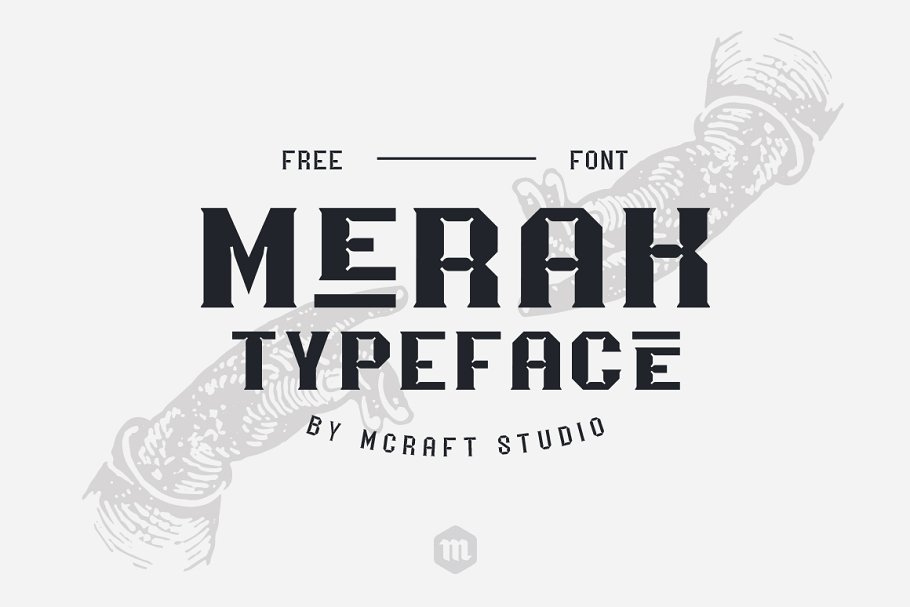
Merak Font
This celestial typeface is perfect for astronomy brands, space exploration companies, stargazing equipment, planetarium signage, cosmic merchandise, space-themed restaurants, astrology services, scientific publications, and stellar design applications.
What makes this font exciting is its stellar radiance combined with cosmic sophistication, offering designers a luminous typeface that captures the brilliance of distant stars while delivering astronomical precision and celestial visual magnificence.
The Merak font family includes light, regular, medium, bold, stellar, and cosmic variations, providing complete astronomical design solutions for creating brilliant celestial visual identities.
Whether you're developing space exploration brands or crafting cosmic design experiences, Merak Font Free Download brings exceptional celestial atmosphere and astronomical authenticity to every application. This stellar typeface combines space-age typography with contemporary cosmic design, creating letterforms that inspire wonder and celebrate universal beauty. The font's celestial construction and star-ready details make it perfect for brands seeking immediate astronomical recognition.
Merak Font features carefully crafted stellar styling with authentic cosmic character that conveys genuine astronomical expertise. Each character has been designed to reflect the luminous beauty of stellar formations, with radiant proportions and celestial elements that enhance the cosmic aesthetic. The font's astronomical qualities make it particularly effective for space brands and scientific applications.
Professional designers choose Merak Font for projects requiring authentic astronomical credibility and celestial atmosphere. Its cosmic heritage makes it exceptionally well-suited for space agencies, observatories, and stellar lifestyle brands. The font's versatile celestial variations allow designers to control the astronomical intensity, from subtle stellar elegance to full cosmic celebration.
The complete Merak Font package offers extensive astronomical ornaments and stellar decorative elements that enhance the celestial aesthetic. Advanced cosmic features allow designers to create complex astronomical effects with multiple universe-inspired options. This comprehensive celestial toolkit ensures designers have everything needed to create authentic space communications that celebrate the infinite beauty of stellar formations and cosmic exploration excellence.